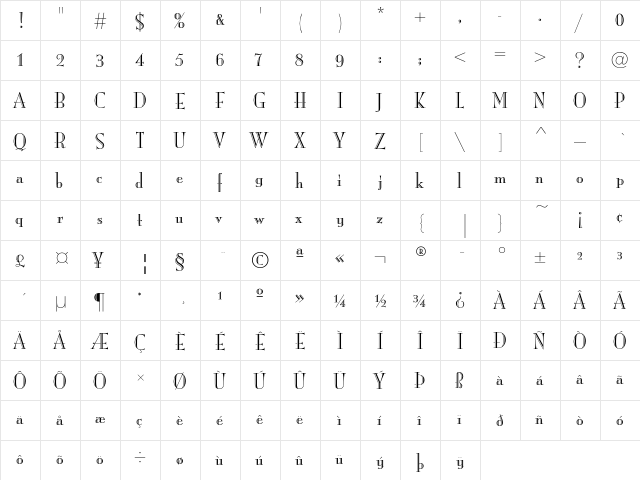
MonaLisaRecutEF Regular
Design Context for MonaLisaRecutEF Typeface
MonaLisaRecutEF offers clean, dependable letterforms without strong stylistic allegiance, making it a practical choice for designers who need flexibility.
Pro Tip: Use MonaLisaRecutEF in both headline and body roles to test its range before committing to a single application.